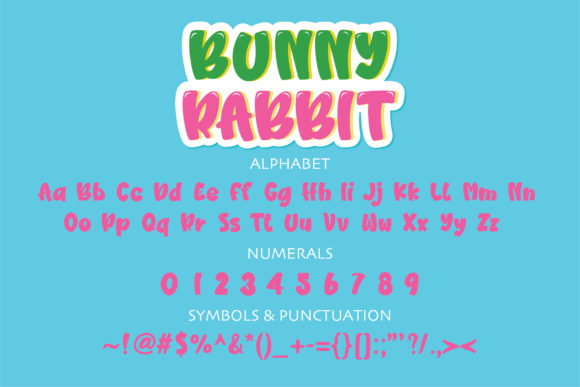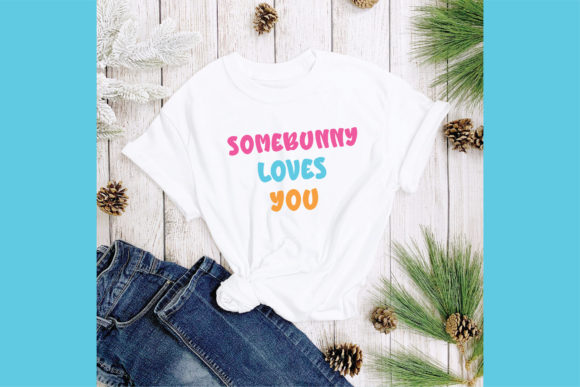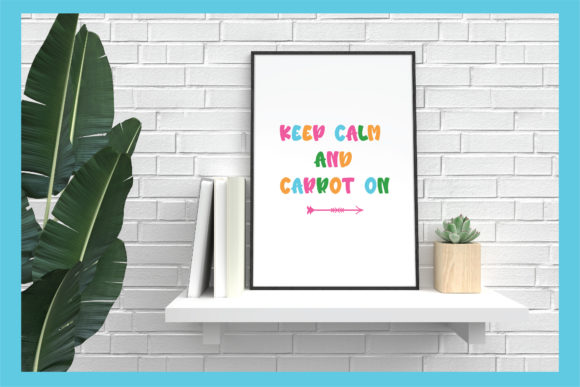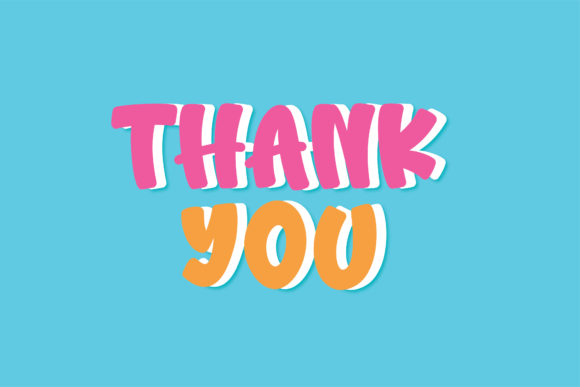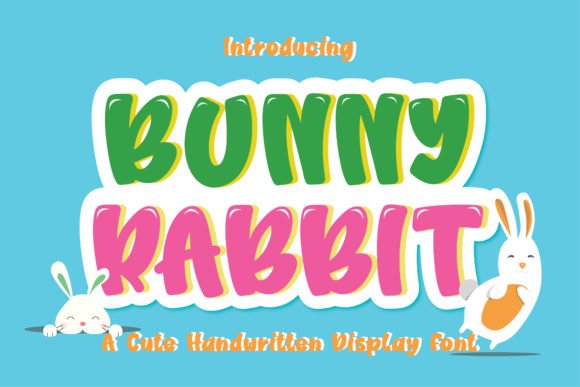
Get Ready to Hops into Creativity with the Bunny Rabbit Font!
Have you ever stared at a blank page, feeling like your ideas are stuck in a creative rut? We’ve all been there! But what if you had the perfect font to spark inspiration and bring your designs to life? That’s where the Bunny Rabbit Font comes in – a trendy and bubbly display font that’s sure to add a touch of whimsy to your work.
This charming font is perfect for designers looking to add a natural and unique touch to their designs. With its effortless style, the Bunny Rabbit Font is incredibly versatile and can be used in a wide range of projects, from social media graphics to branding and beyond. Whether you’re a seasoned pro or just starting out, this font is a valuable addition to your design toolkit – so why not give it a try and see where it takes you?
Bunny Rabbit Font Key Features
- Font Family: Bunny Rabbit Font is a sans-serif font family designed to resemble a cartoon rabbit, making it perfect for children’s books, advertising, and other playful applications.
- Character Set: The font includes a wide range of characters, including uppercase and lowercase letters, numbers, punctuation marks, and special characters, making it suitable for various text-based applications.
- Unique Characteristics: Bunny Rabbit Font features a distinctive, hand-drawn design with rounded edges and a playful feel, making it stand out from other sans-serif fonts.
Bunny Rabbit Font Review
I recently had the chance to work with the Bunny Rabbit font, and I must say, it’s a mixed bag. ✨ On the plus side, the font’s whimsical nature and playful feel make it perfect for designs that need a lighthearted touch. It’s particularly well-suited for children’s books, advertising campaigns, or any project that requires a touch of magic. The font’s curves and lines are smooth and well-designed, making it a joy to work with.
- ✨ Whimsical and playful feel
- ✨ Perfect for children’s books, advertising campaigns, or other lighthearted designs
- ✨ Smooth and well-designed curves and lines
However, ⚠️ the font’s limitations become apparent when trying to use it for more serious or formal designs. The font’s lack of sophistication and elegance makes it difficult to use in professional or business settings. Additionally, the font’s small character set and limited language support may be a hindrance for designers who need to work with a wide range of languages.
- ⚠️ Limited suitability for serious or formal designs
- ⚠️ Small character set and limited language support
Overall, I would recommend the Bunny Rabbit font for designers who are looking to add a touch of whimsy and fun to their designs. However, it may not be the best choice for more serious or professional projects.
The Bunny Rabbit Font is ideal for children’s books, nursery decor, and Easter-themed designs. To get the most out of it, use it in conjunction with pastel colors and cute illustrations. You can also use it to create a whimsical and playful atmosphere in your designs.